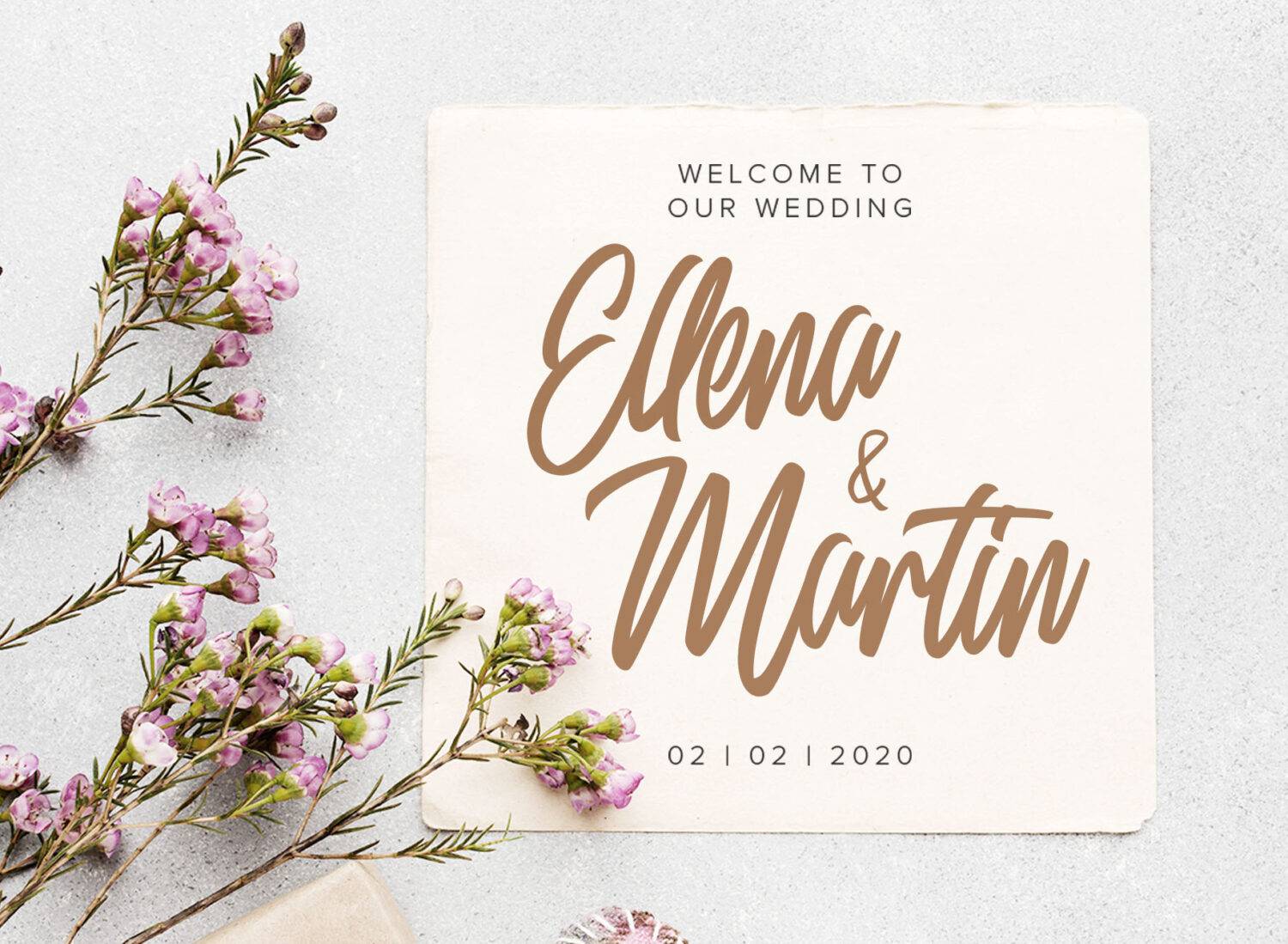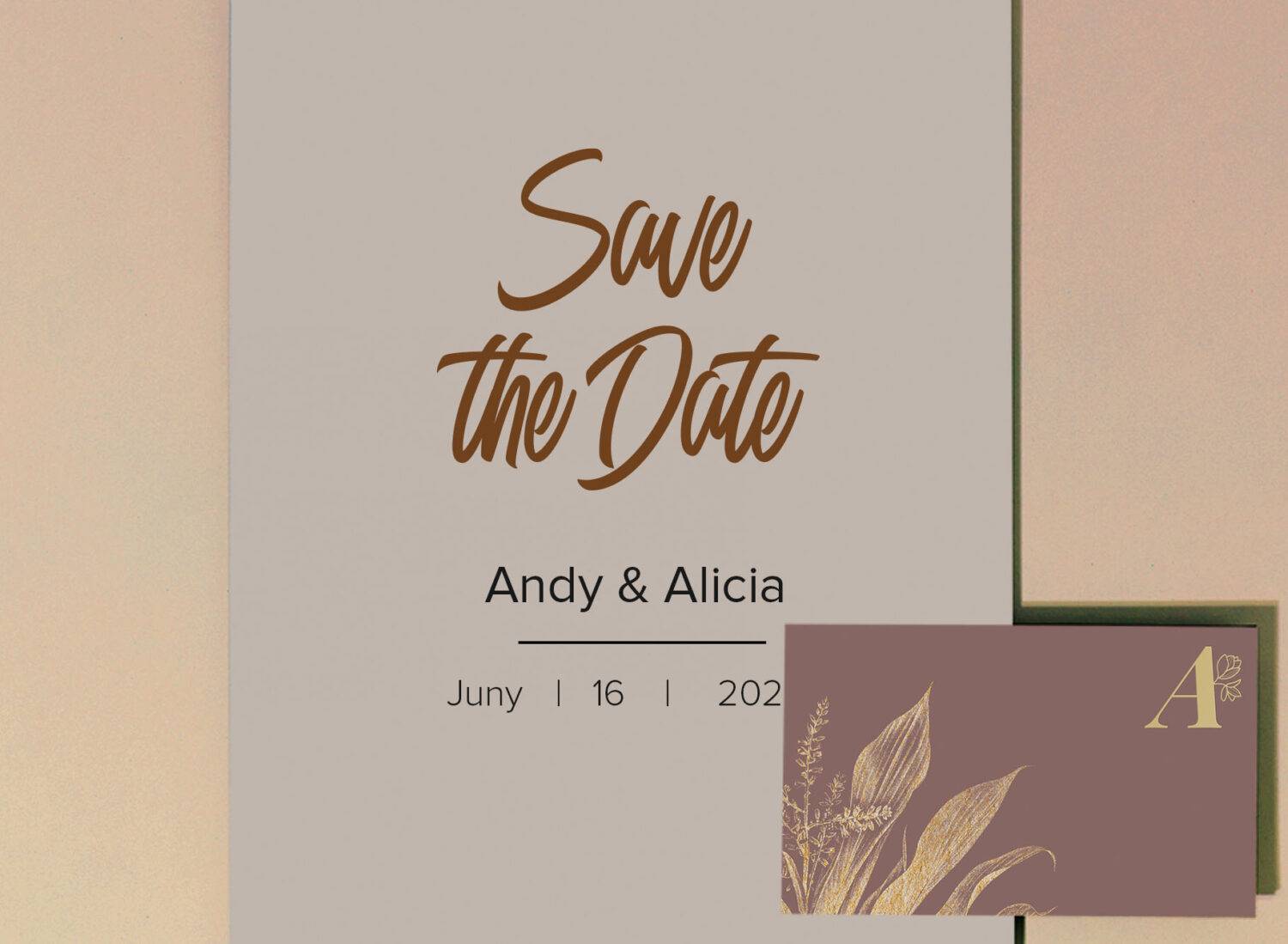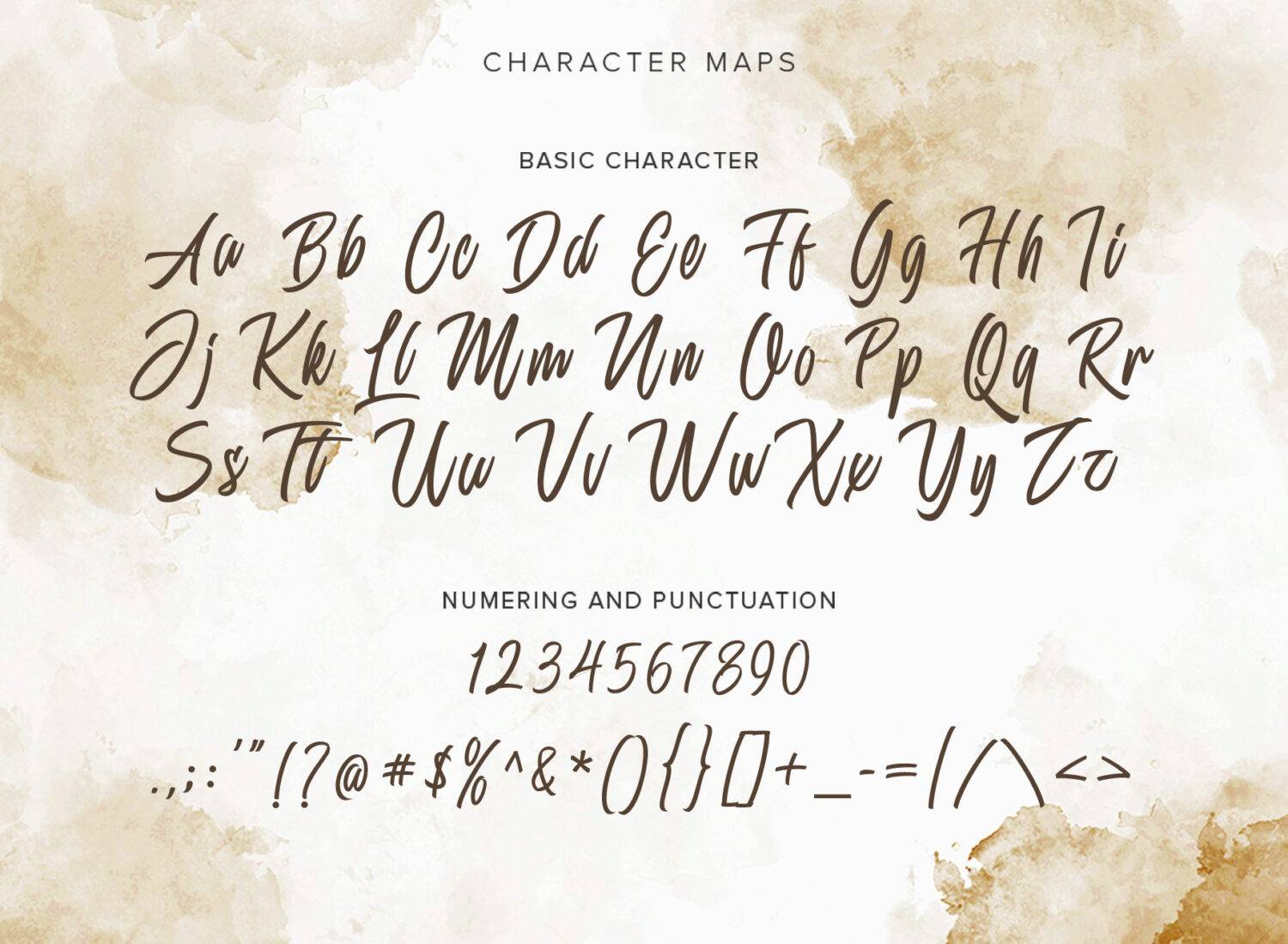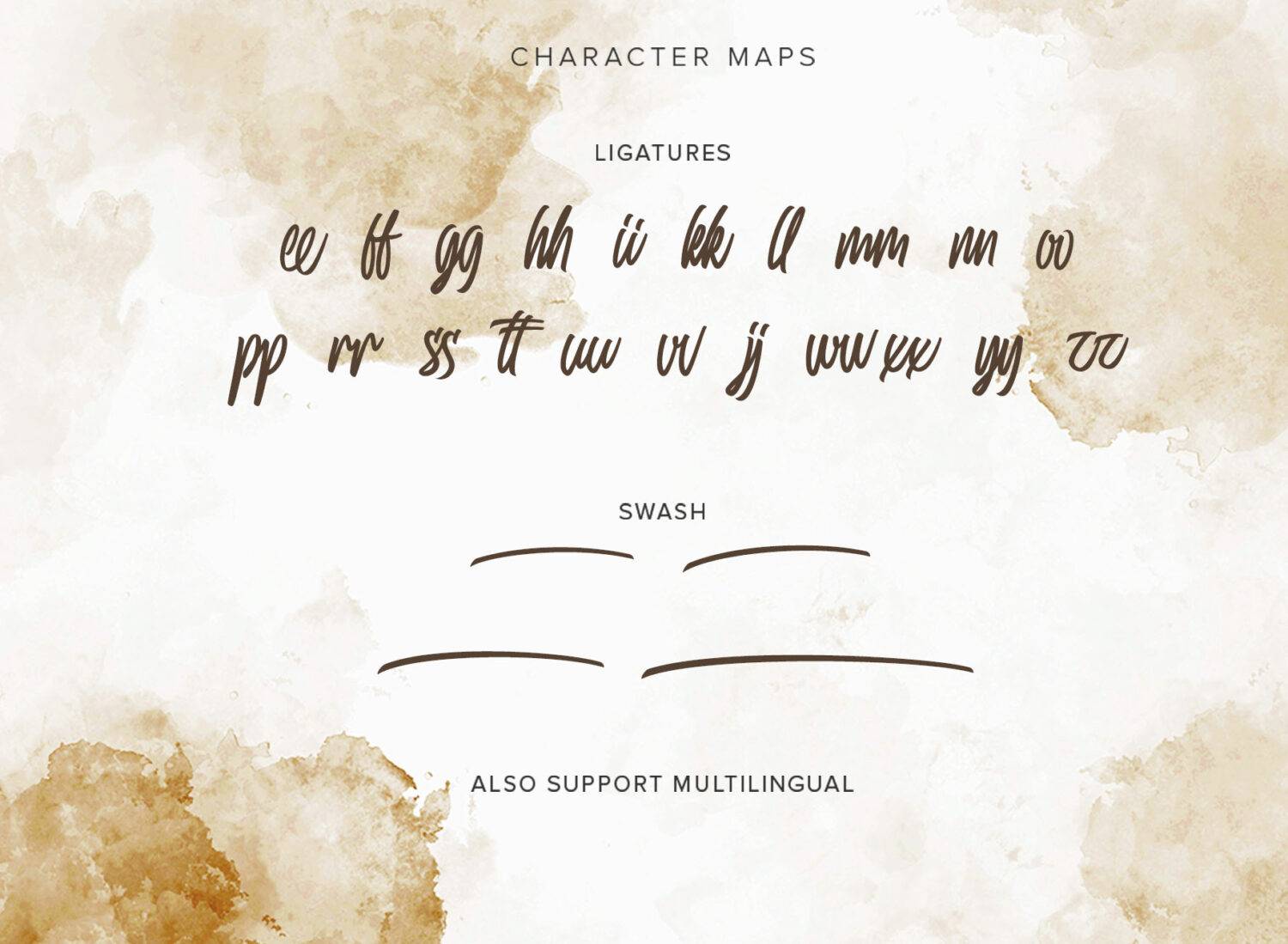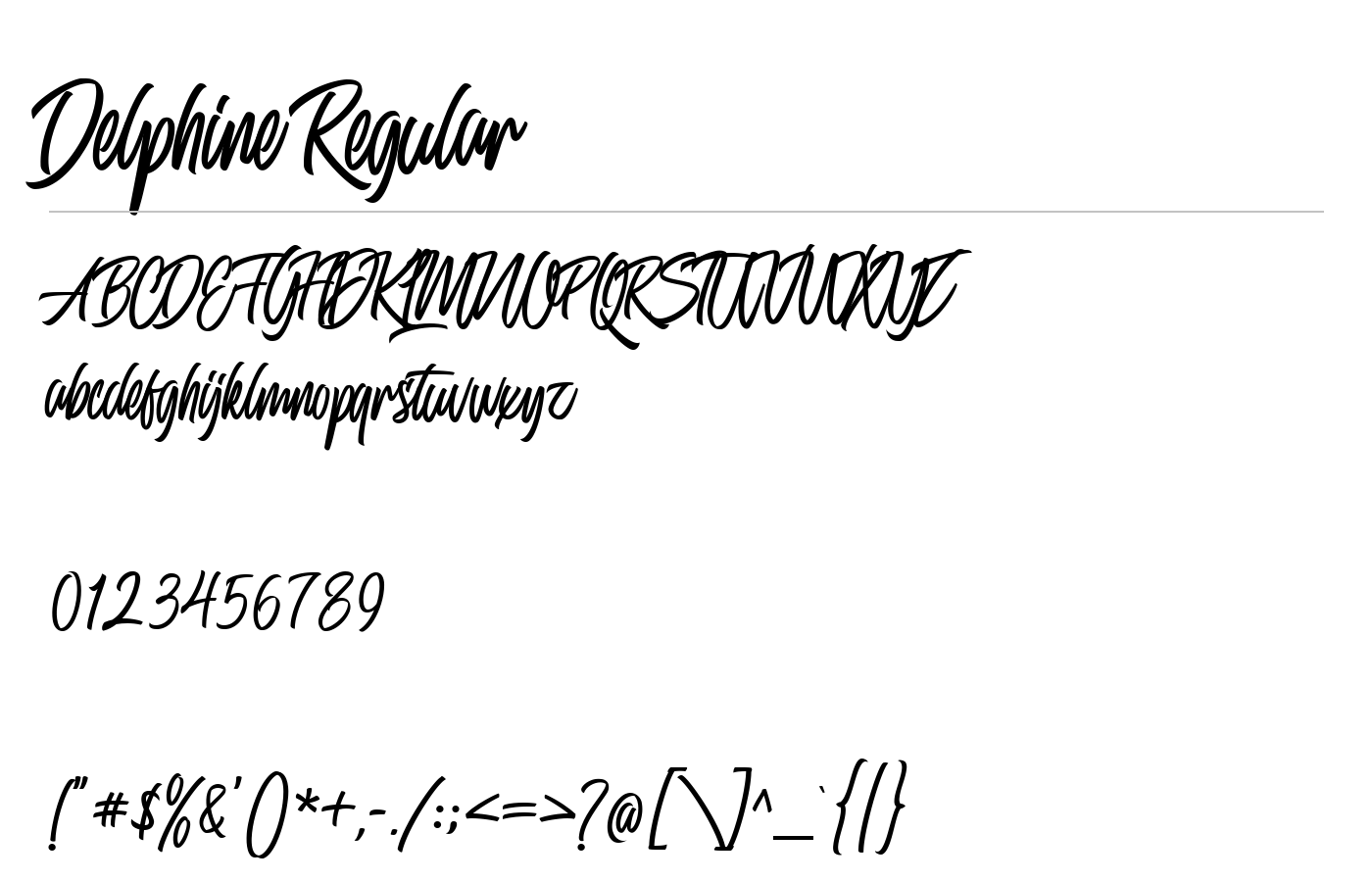
Delphine is a lively and elegant script font with a handwritten feel, characterized by its smooth, flowing strokes and moderate contrast in weight. Its tall, narrow letterforms and slightly compressed spacing create a stylish, energetic vibe, making it perfect for fashion branding, invitations, and creative headlines. This font works well in any design that seeks a personal yet polished look, combining sophistication with a touch of playful charm.
Delphine Font